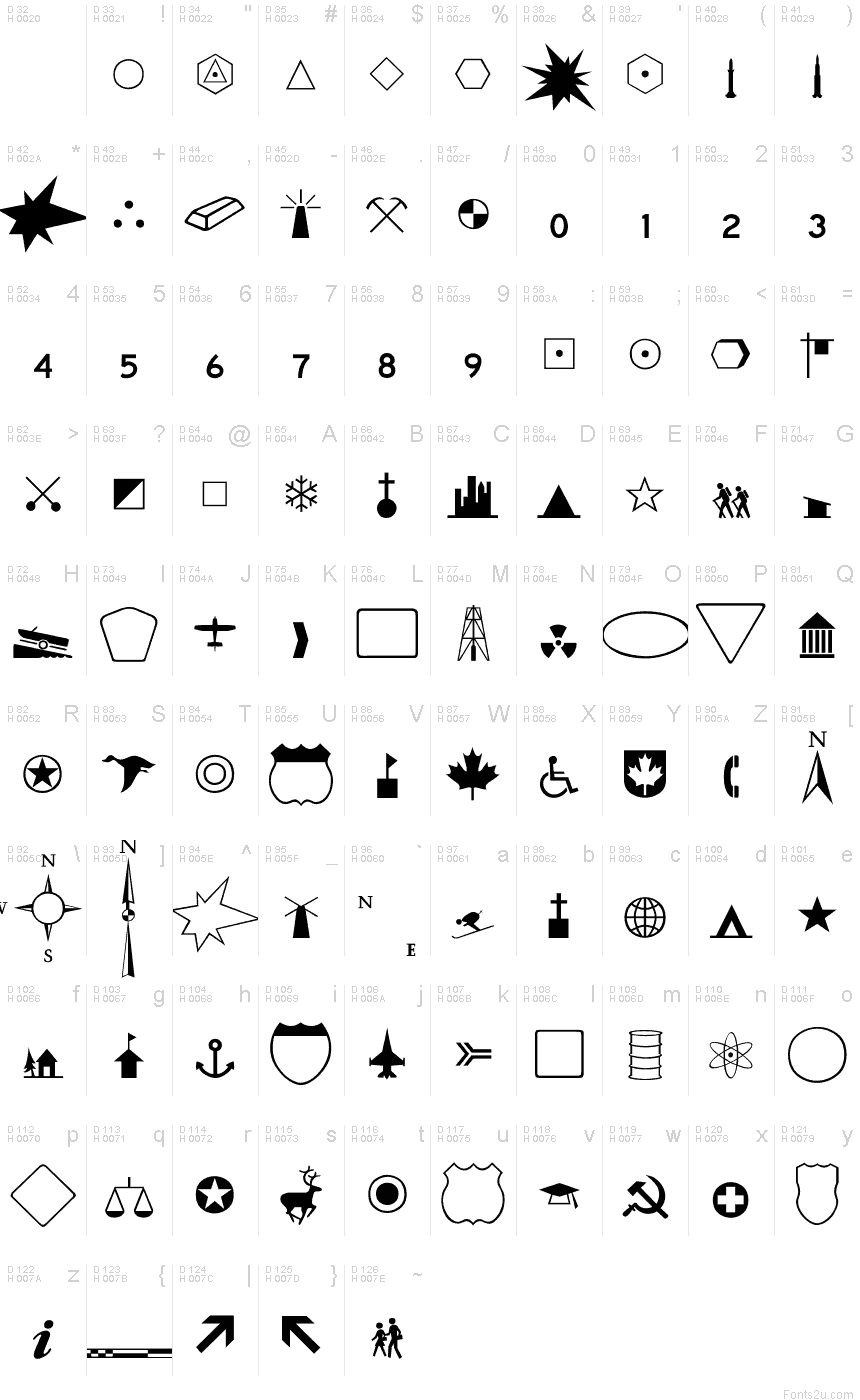
Carta by ALLTYPE is a free pictogram dingbat font built from crisp, solid silhouettes. Its symbols reduce city scenes, sports figures, and circular emblems to simple geometric shapes. The collection has the direct look of signage and printed icons.
Travel brands and outdoor venues can use these compact pictures in brochures, event posters, and merchandise, where they act as labels or illustrated marks. The urban landmarks and skiing imagery make it especially relevant to winter tourism and destination guides.